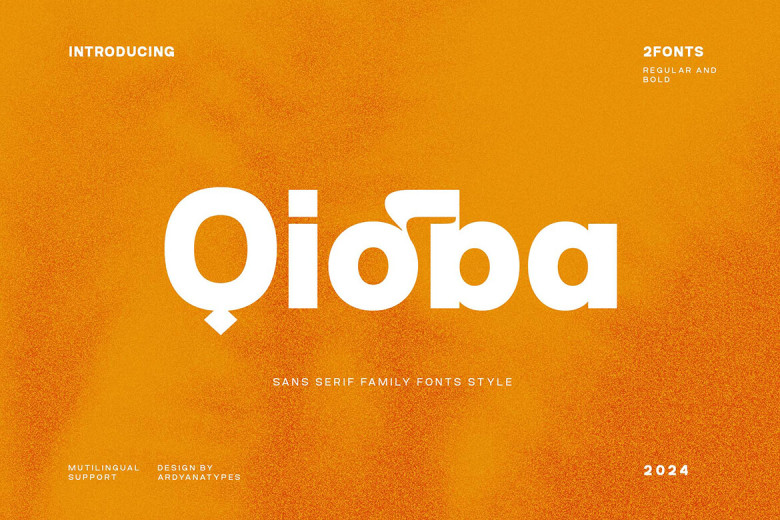
Qioba Font
Thanks to modern technology Qioba is a quite special sans serif font to create which the designer paid a great amount of attention. This font is specially created to give an elegant style to different designs. Being an OpenType font Quioba has multiple options for every symbol, it makes the use of the font much more diverse and free-spirited.
Qioba Sans Serif Font